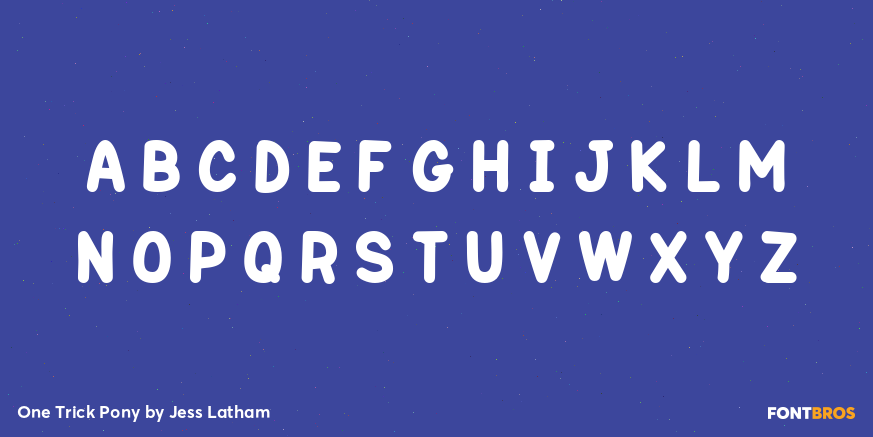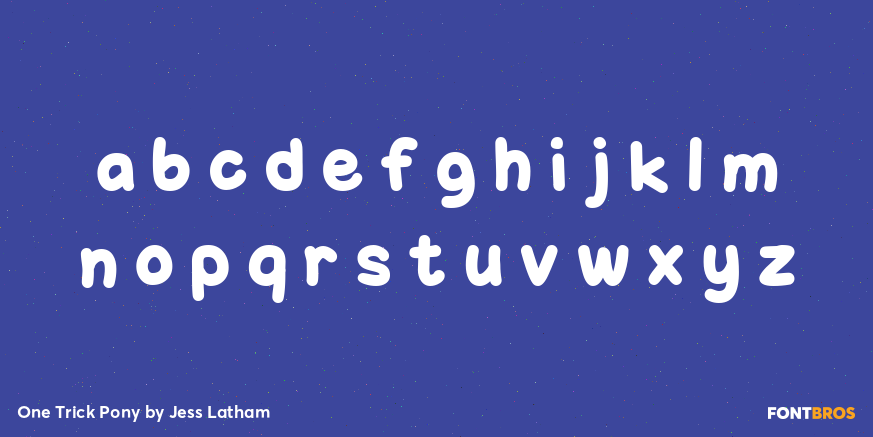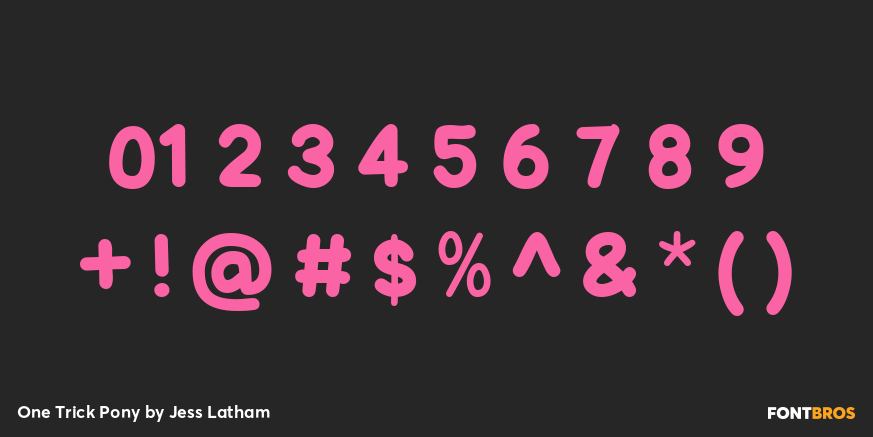
One Trick Pony
Font Family by Jess Latham
One Trick Pony is a playful, rounded sans serif with a bold, geometric look and soft edges. Its clean construction keeps it easy to read, while the friendly, casual tone gives layouts a more approachable and modern feel.
Designed by Jess Latham, this single-style family is well suited to fun display work, contemporary branding, upbeat packaging, posters, social graphics, and any project that needs a simple sans with a little extra personality. It feels informal without getting messy, making it a smart choice when you want something fresh, clear, and cheerful.